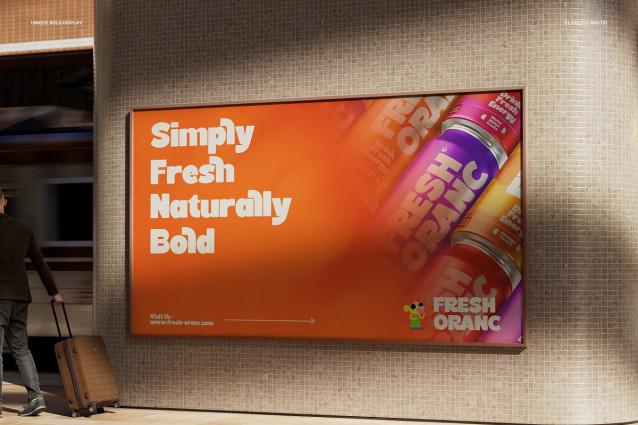
Nakila Font
Nakila Font is a bold and unique display font crafted to create a strong visual statement with a distinctive personality. Featuring thick strokes, unconventional shapes, and eye-catching letterforms, Nakila is designed to stand out and capture attention instantly. Its creative and expressive style makes it perfect for designs that need to feel modern, artistic, and full of character while still maintaining good readability.